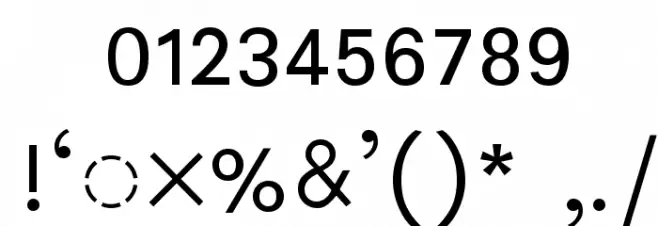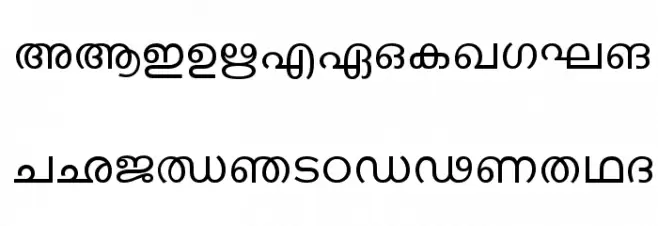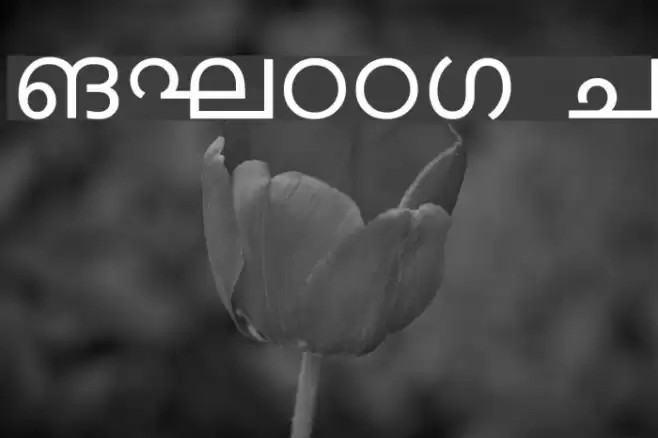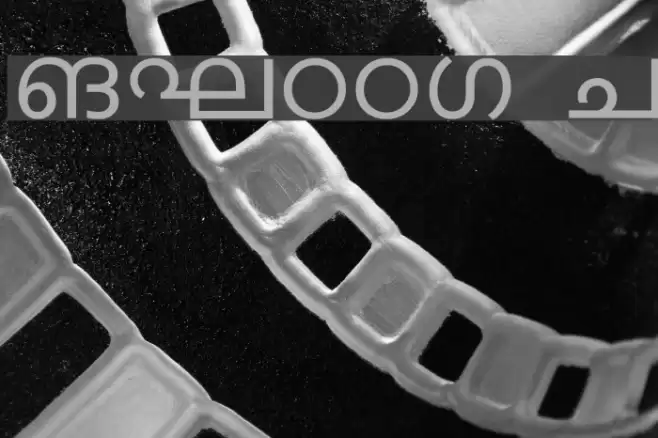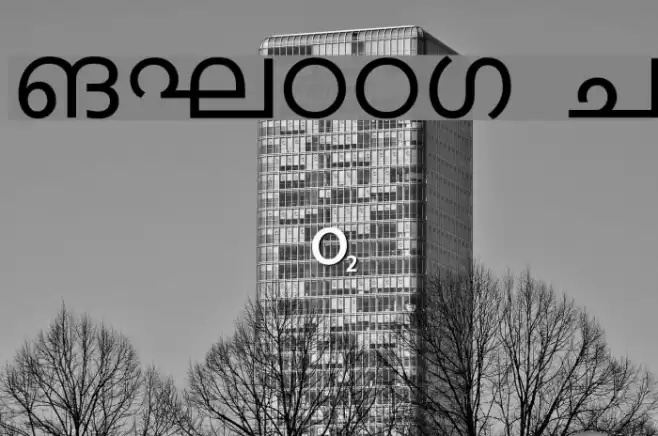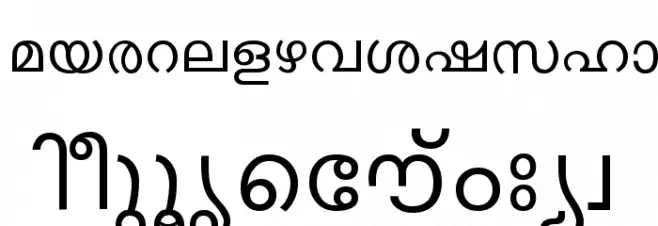
ML-TTKarthika Normal Font
ML-TTKarthika Normal Description
This font is a Malayalam script typeface characterized by its clean and modern appearance. The characters are well-defined with smooth curves and a balanced structure, making it highly readable. The numerals and special characters are designed to complement the script, maintaining a consistent style throughout. The font's design is suitable for both digital and print media, offering versatility in various applications. Its clarity and elegance make it an excellent choice for formal documents, educational materials, and creative projects that require a touch of cultural authenticity.
| Use Case | Body text, Educational materials, Cultural publications |
| Proposed Projects | Ideal for educational materials, formal documents, cultural publications, and creative projects. |